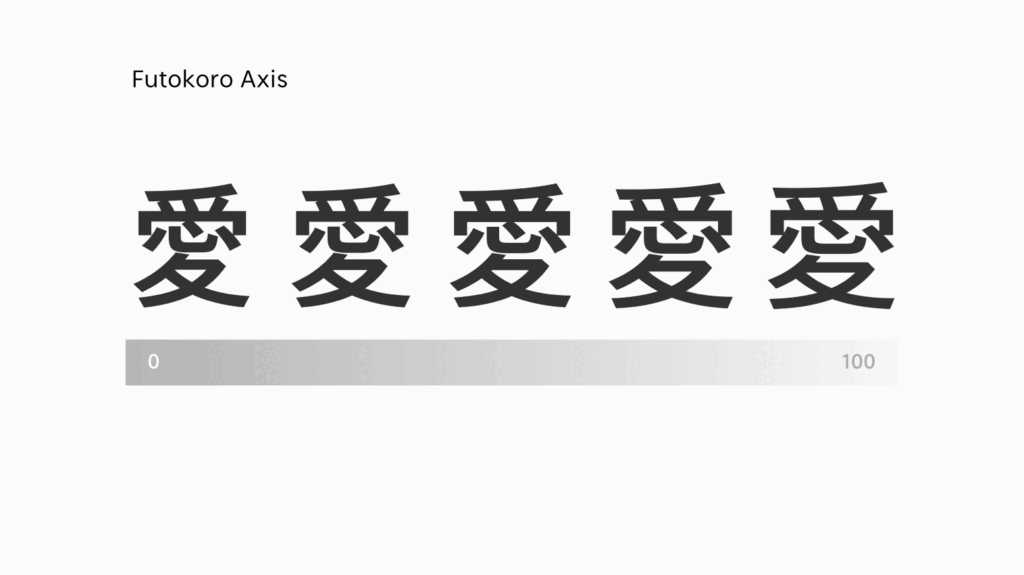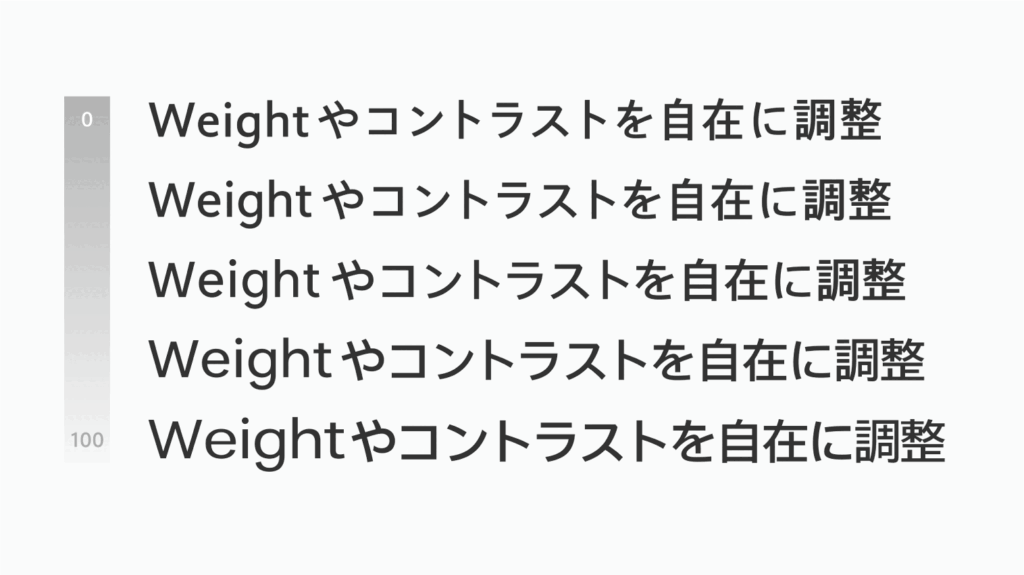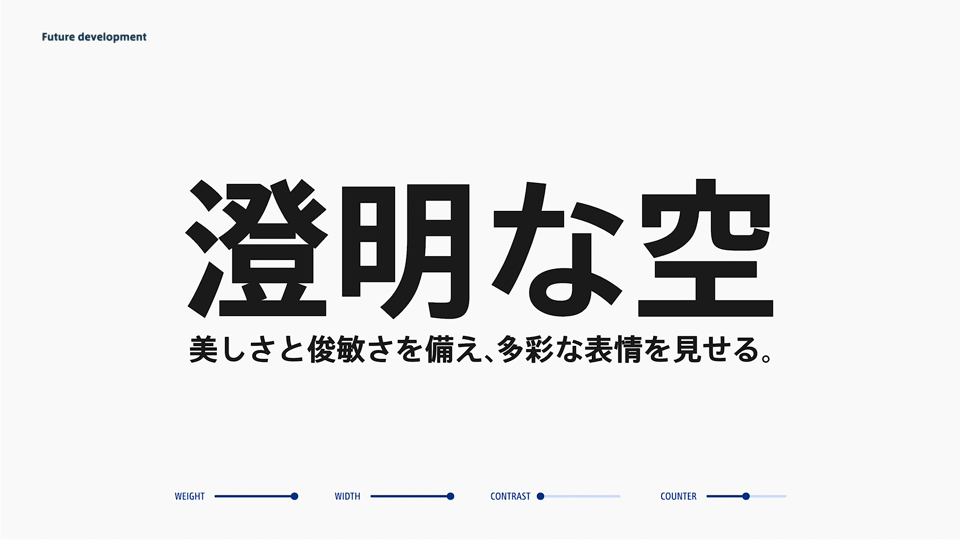
Introduction to FitFont Service 09: “Axis of Futokoro (Inside Space Between Strokes)”
Based on the experience in providing fonts using the FitFont Service to this point, Type Project continues its technological development to strengthen the service further.
TP Sky, which is the first Japanese font family to have three axes of weight, contrast, and character width, was introduced in the previous article. As the next step, TP Sky added with a fourth axis has been developed, and released as TP Sky Classic in June 2021.
The newly added fourth axes is the axis of inside space between strokes. Inside space between strokes indicates space between strokes(called futokoro in Japanese) that constitute a character. Looking at the structure of Japanese font, design close to classic tends to have an impression of smaller and tightened inside space between strokes, while modern design tends to have wider inside space between strokes.
The concept of continuously changing the width of inside space between strokes is believed to be the first among Japanese fonts at least. The width of inside space between strokes significantly influences the design features and atmosphere. For that reason, changes in expression obtained by changing the axis of inside space between strokes is very interesting. We believe that its pursuit can enrich the Type Project library and technology further. In terms of matching with Latin font, FitFont with various axes such as these can increase the extent of fitting, and provides various combinations between different fonts.